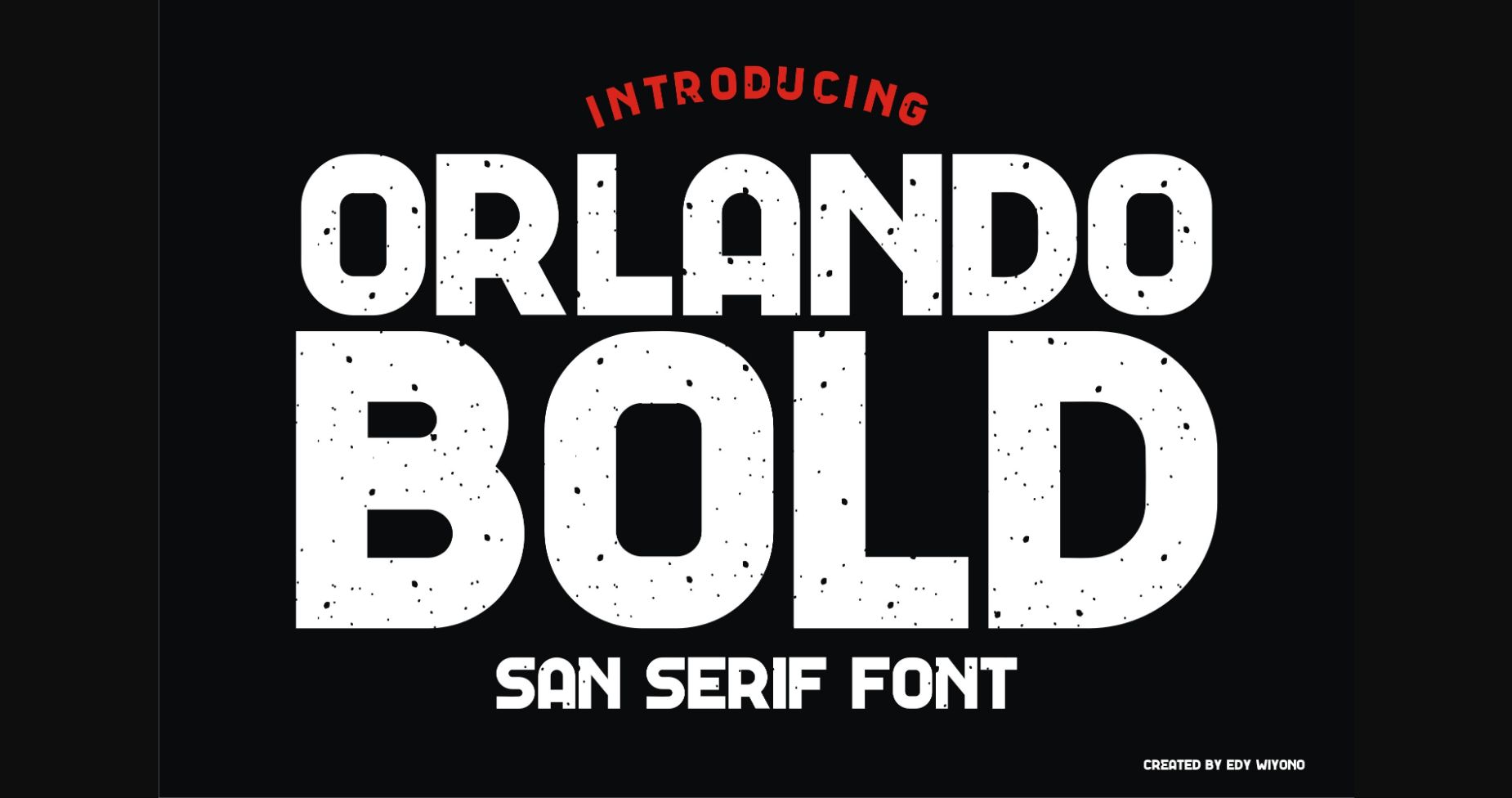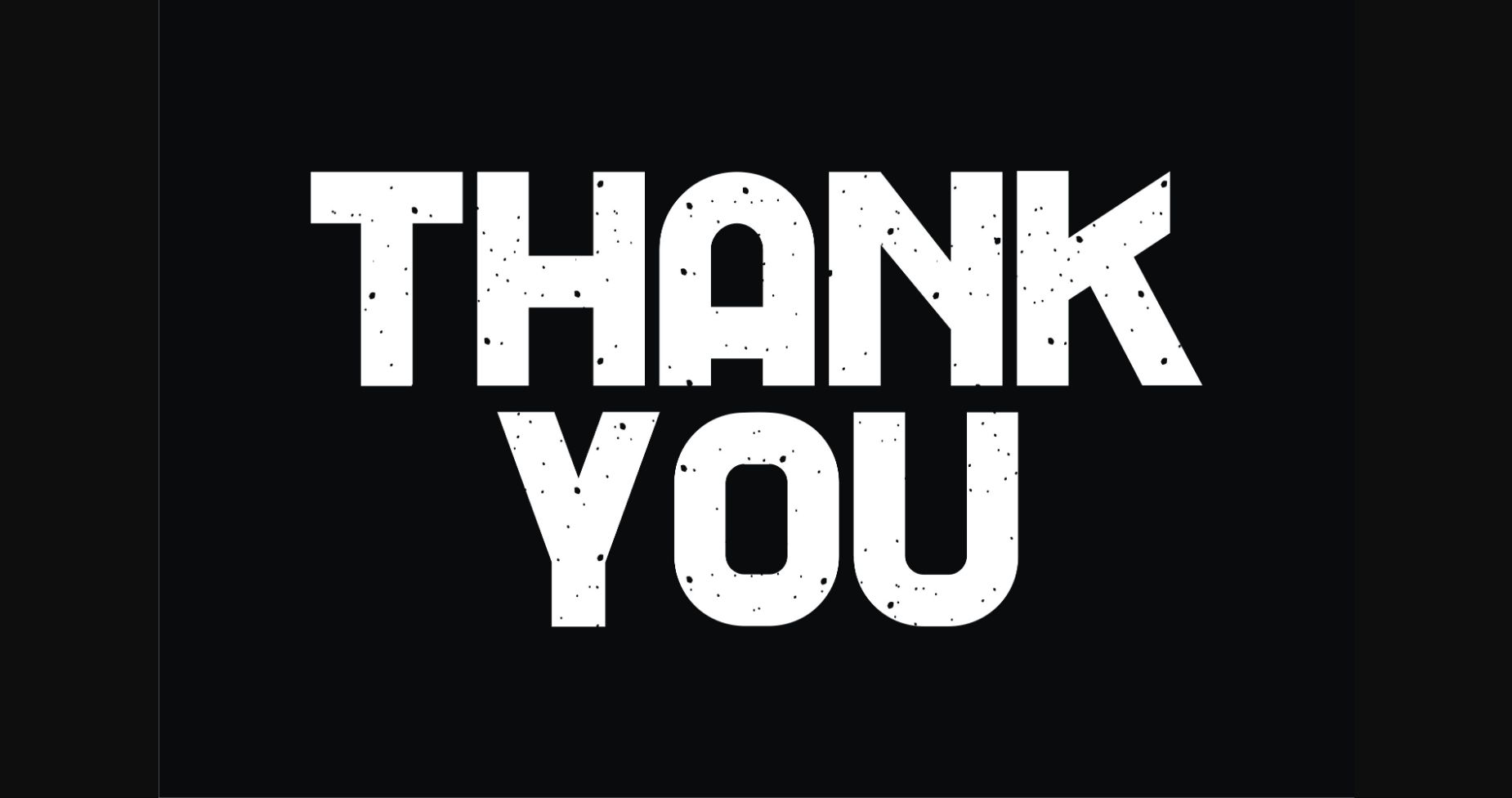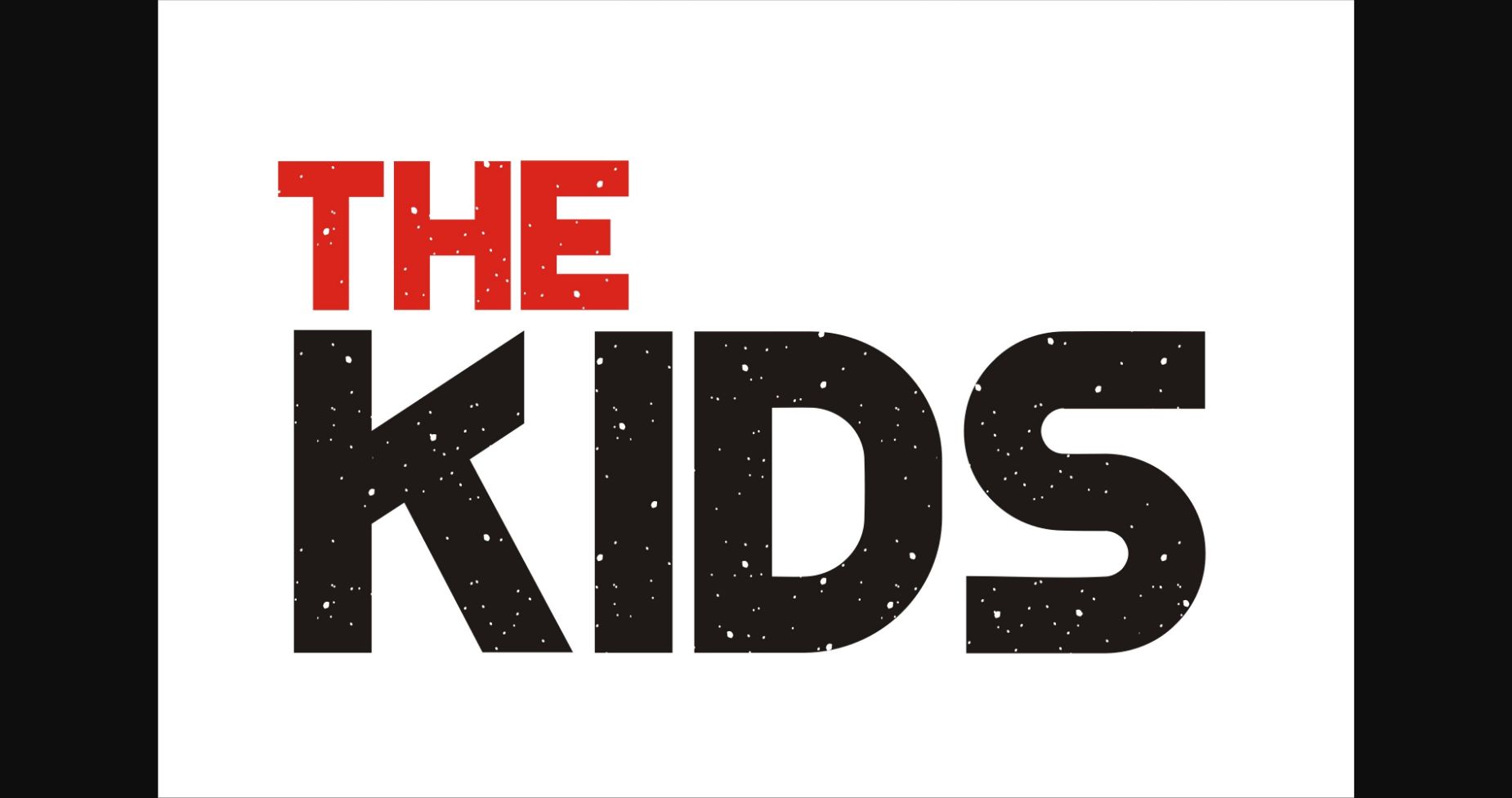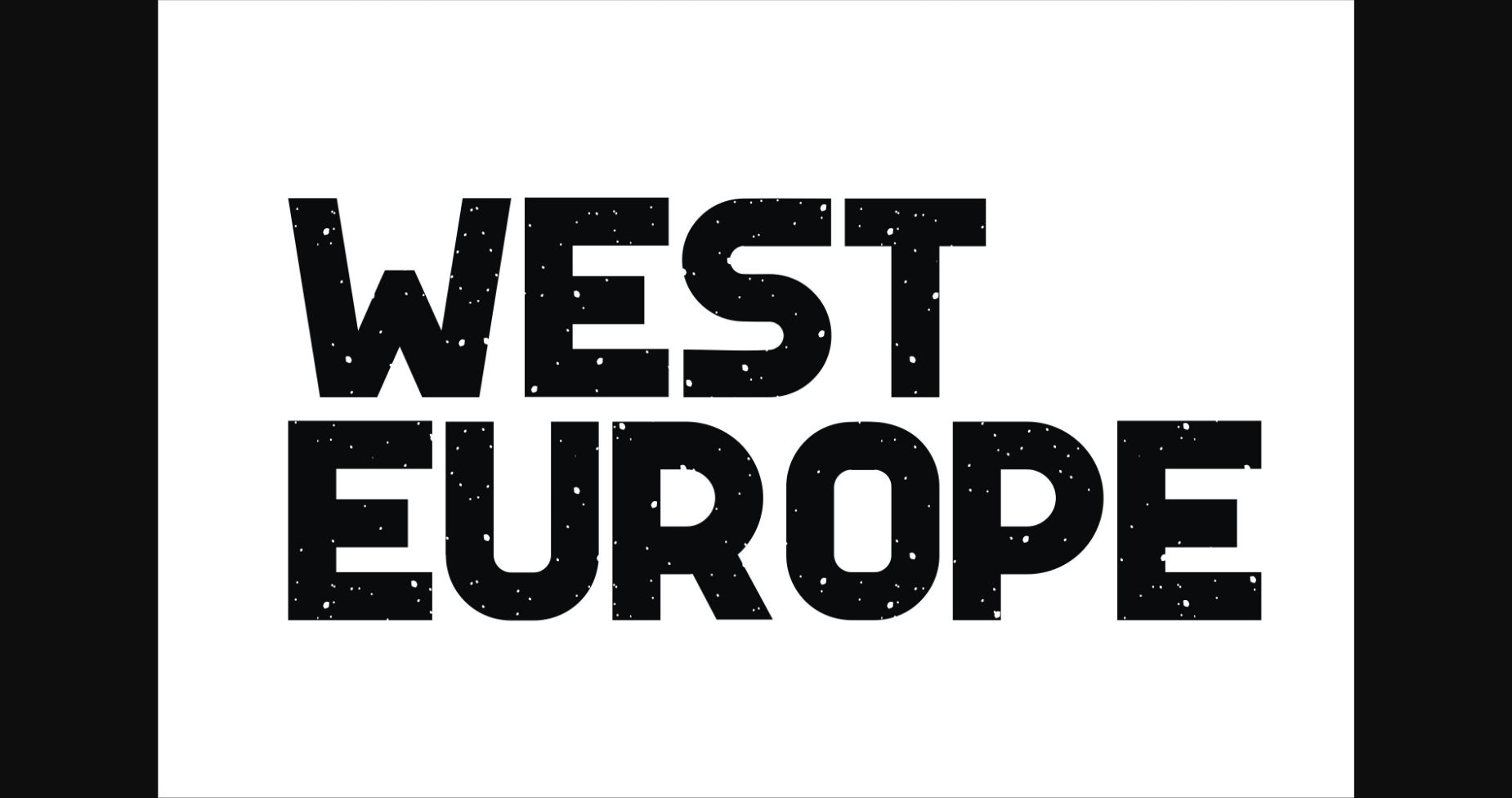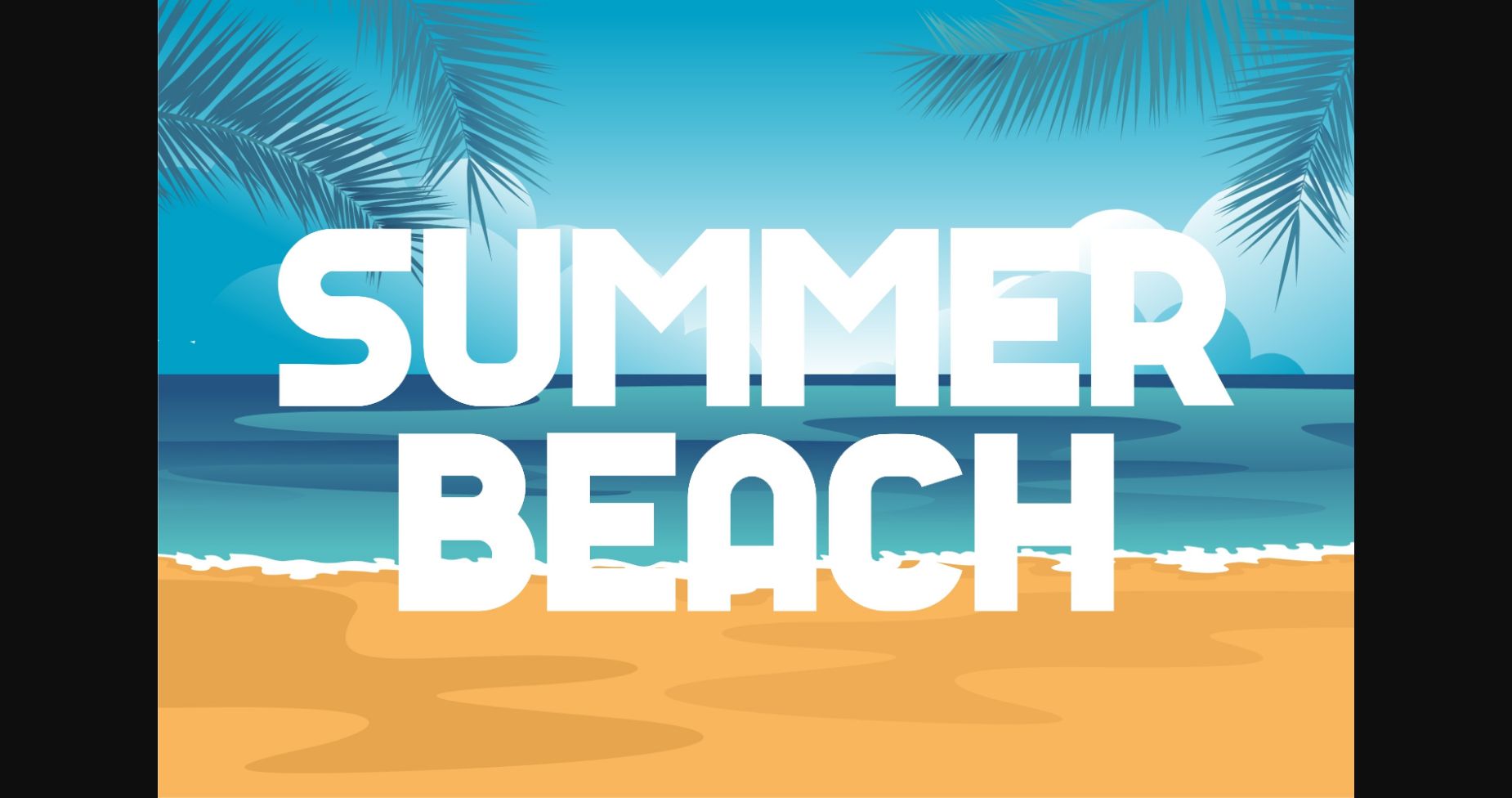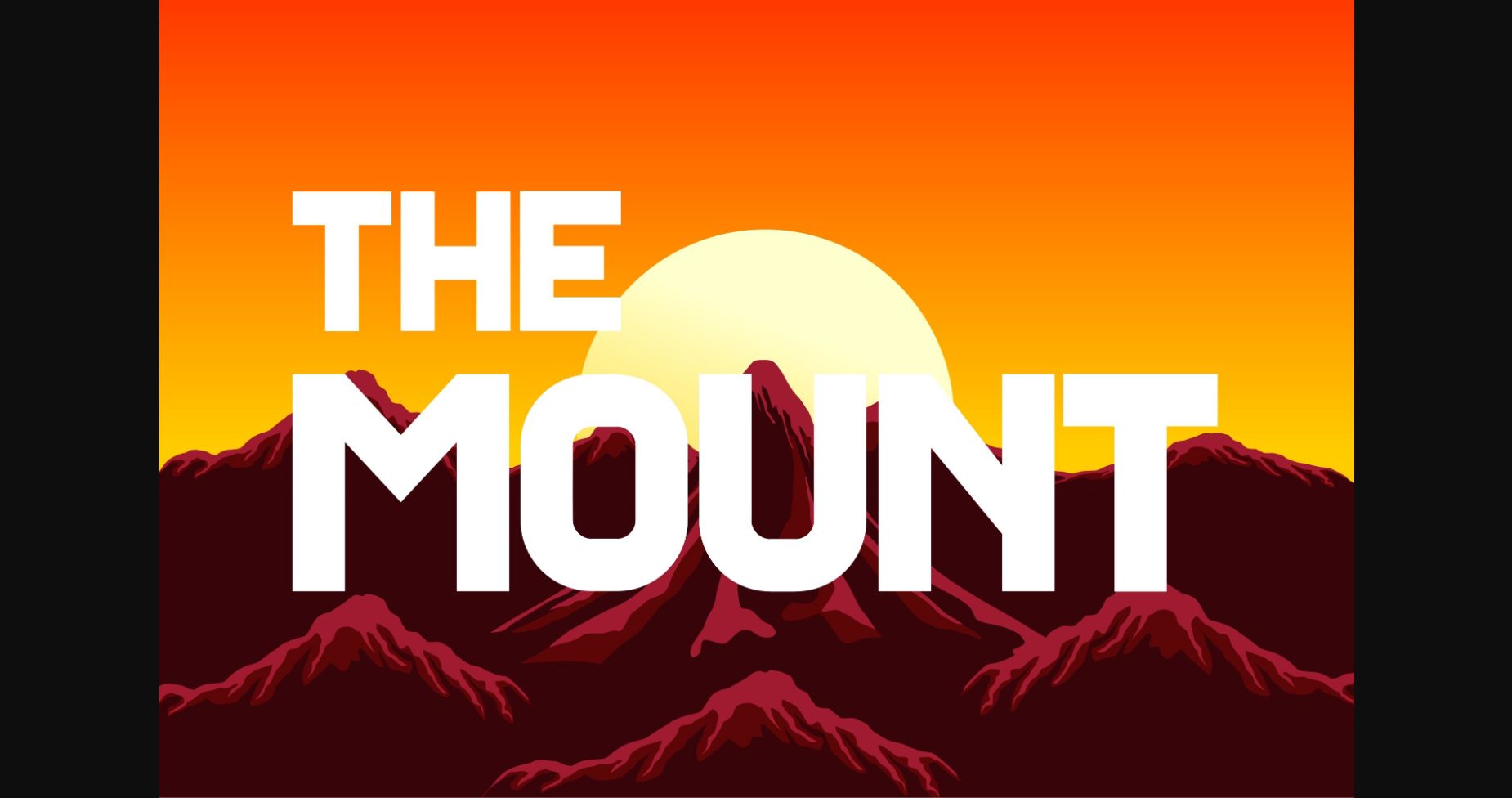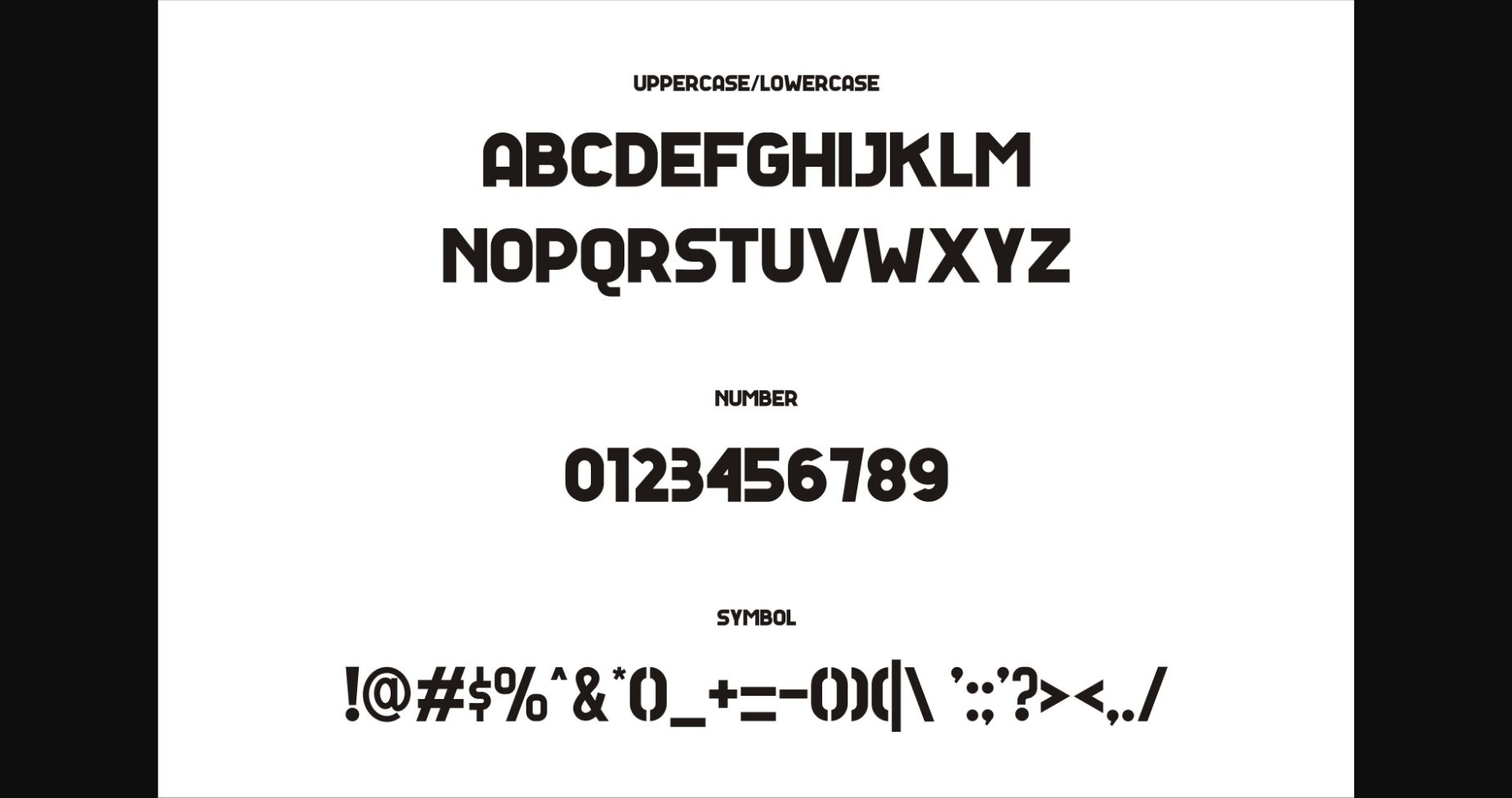
Orlando Bold Font
About Orlando Bold Font
Orlando Bold is a cool, vintage-style sans serif font. Masterfully designed to become a true favorite, this font has the potential to bring each of your creative ideas to the highest level!